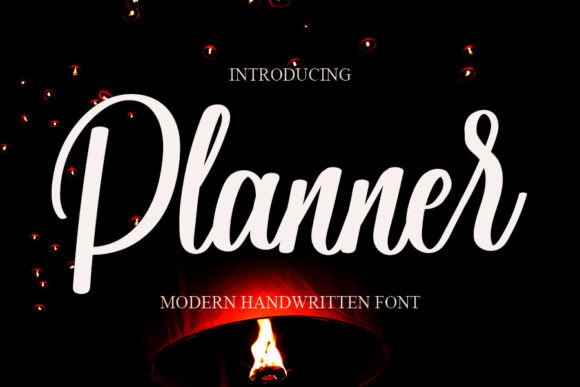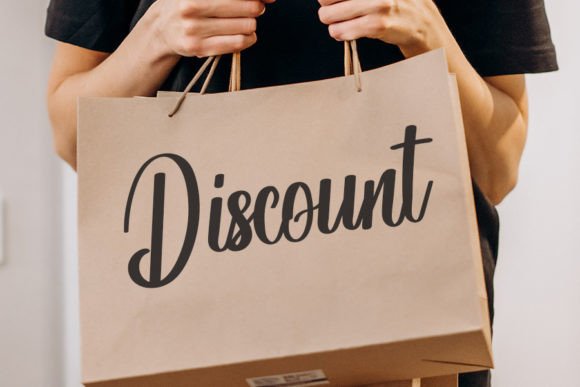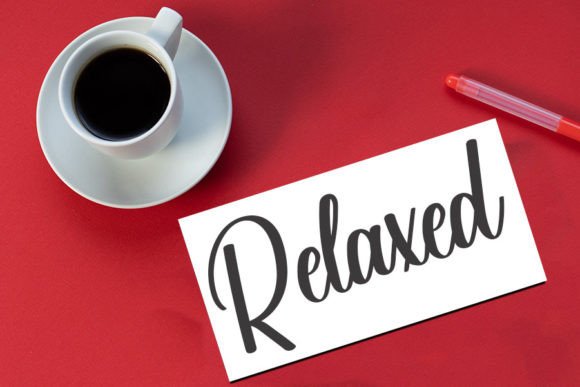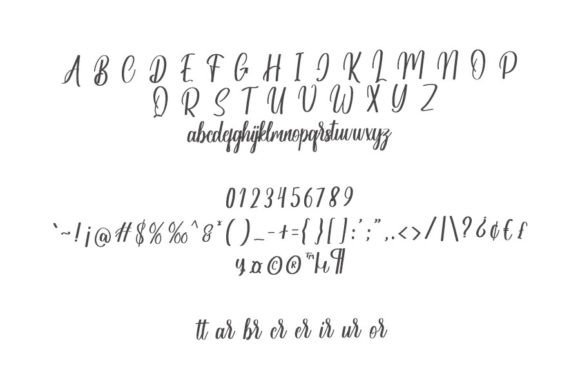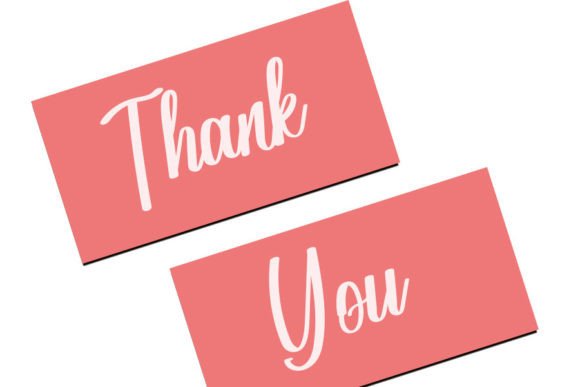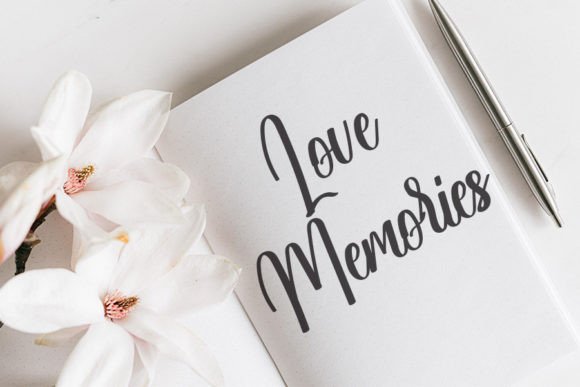
Planner Font
Add Charm and Balance with Planner Font
Planner Font is a delightful handwritten typeface designed to bring a personal and polished touch to your creative work. With a style that is not too thin or too bold, this font achieves perfect balance and visual harmony. If you’re looking for a font that feels friendly, approachable, and versatile, Planner Font is the ideal choice.
Whether you’re designing for digital platforms or print media, this typeface effortlessly enhances the aesthetic of any project. From bullet journals to business cards, its clean strokes and well-defined curves ensure excellent readability and style.
Where to Use Planner Font
One of the greatest strengths of Planner Font is its flexibility. It works beautifully across a wide variety of creative applications. For instance:
• Planners and journals
• Event invitations and greeting cards
• Stickers and digital scrapbooks
• Social media content and quotes
• Product packaging and labels
• Website headings and blog graphics
The charming handwritten aesthetic gives a warm, personal feel to every project. This makes it especially popular among creatives in the lifestyle, stationery, and event planning industries.
Features That Make Planner Font Stand Out
Planner Font is more than just visually appealing—it is also designed with usability in mind. Key features include:
• Complete set of uppercase and lowercase characters
• Numbers, punctuation, and special characters
• Multilingual support
Why Designers Choose Planner Font
PlannerFont stands out for its friendly tone and consistent structure. It adds personality without compromising clarity. Many handwritten fonts lean too far into either style or structure—PlannerFont hits the sweet spot in between. Furthermore, it pairs well with serif or sans-serif fonts, offering even more design flexibility.
Adding it to your project brings in a feeling of authenticity. It feels like handwriting, but better—neater, more consistent, and instantly pleasing to the eye. Additionally, it’s ideal for branding projects that aim to feel genuine and human-centered.
Complete Your Designs with a Thoughtful Touch
Design is not just about visuals; it’s about the feeling your work conveys. PlannerFont helps communicate friendliness, care, and personality. Whether you’re creating content for yourself or a client, this typeface will help your work feel relatable and stylish.